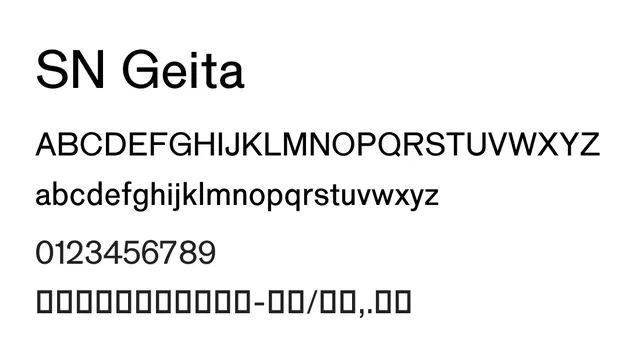
SN Geita
Geometric sans-serif with high x-height and minimal stroke contrast, optimized for contemporary interface and body text applications.
Excellent for digital interfaces and modern editorial design where clarity and contemporary aesthetics are priorities. Works well at all sizes from body copy to UI labels.
Pairs well with transitional serifs like SN Leif for elegant headlines over Geita body text.